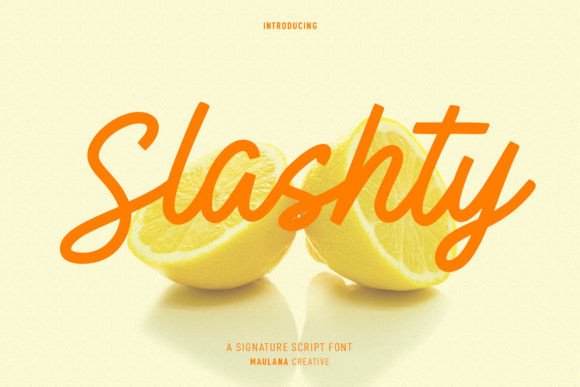
Step into a world of charismatic expression with Slashty Font, a captivating script font family that exudes individuality and charm. Recognized as the Best Font for Logo Design in 2013 by Maulana Creative, Slashty is a testament to the power of typography in shaping visual impact.
Unleash your creativity with this versatile font, expertly crafted to accentuate your designs with a dash of personality. Its casual and smooth flow makes it a perfect fit for an array of projects, from logos and branding to social media graphics and website designs.
Slashty Font is more than just a font; it's an invitation to let your imagination run wild. Its unique style adds a touch of sophistication and elegance to your creations, making them stand out from the crowd. Whether you're a seasoned designer or a creative enthusiast, Slashty Font is your key to unlocking a world of visual expression.
With its effortless charm and undeniable charisma, Slashty Font is the perfect choice for those seeking to make a lasting impression. Let your designs radiate with personality, authenticity, and a touch of magic.
Embrace the beauty of typography with Slashty Font and embark on a creative journey where your ideas take center stage.